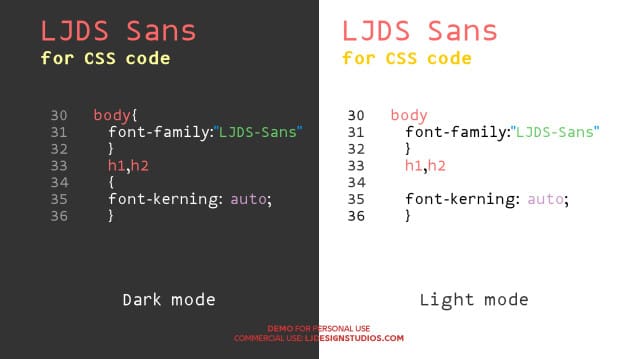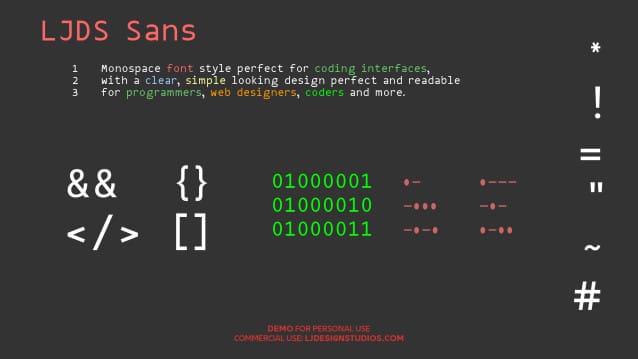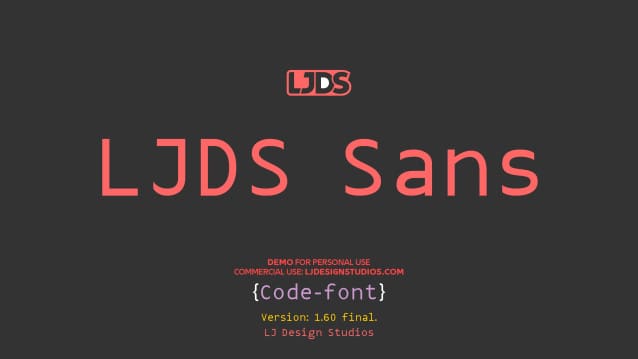
LJDS Sans Font
LJDS Sans Font, is a typographic font constructed based on large fonts with this style. The mission is that LJ Design Studios could have its own version of this style with adjustments that make it different to use in specific corporate purposes
LJDS Sans is a customized version of the slab and retro serif styles with some controno and aesthetic improvements, it is a very dynamic source in formal presentation and compatible with web page formats.